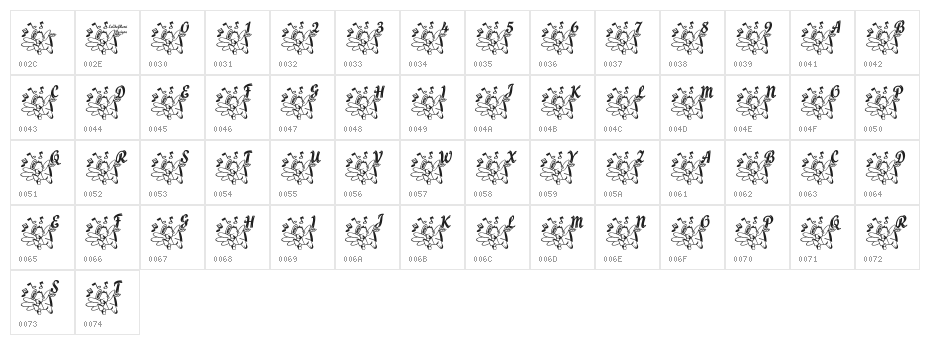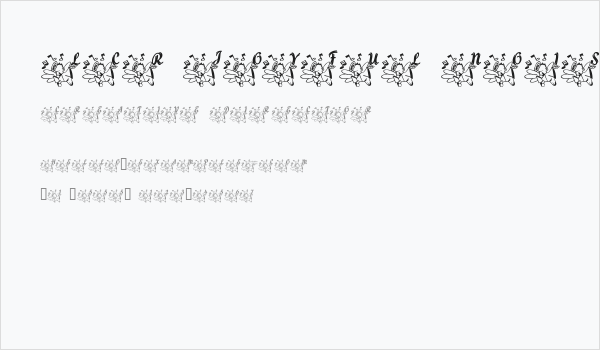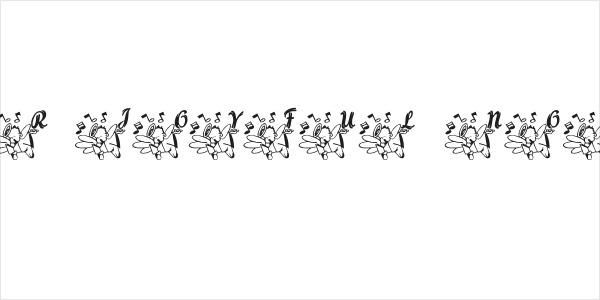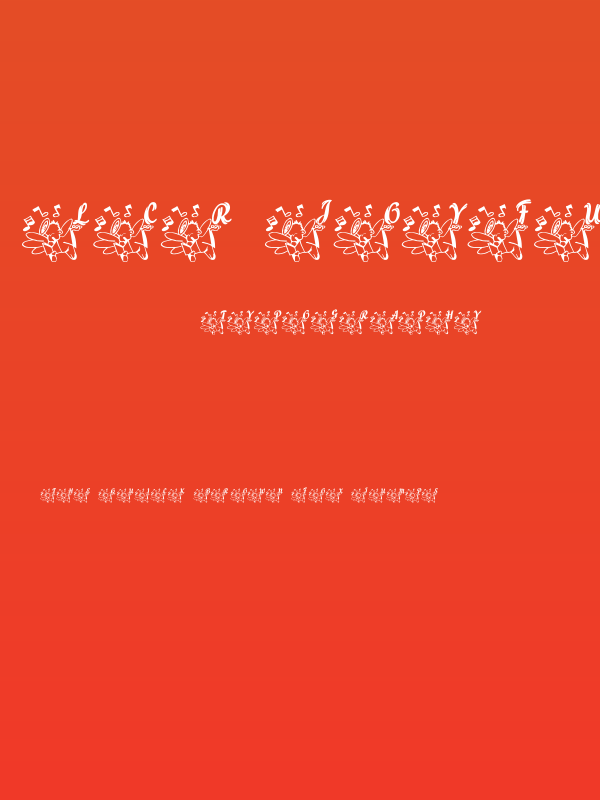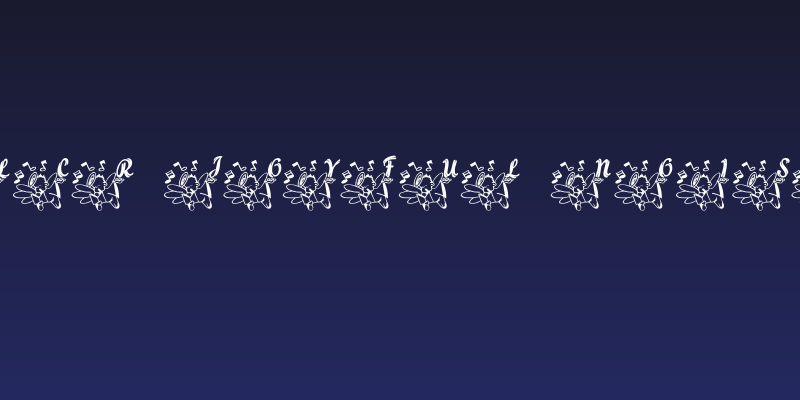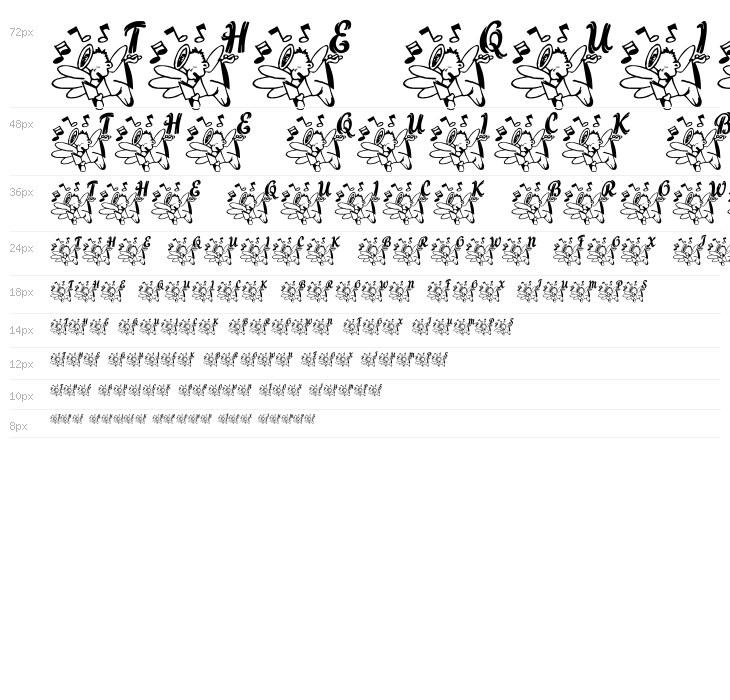
LCR Joyful Noise Font
LCR Joyful Noise Description
This decorative font features each character adorned with a playful floral and musical motif. The letters are intertwined with musical notes and floral designs, creating a whimsical and artistic appearance. The uppercase and lowercase letters maintain a consistent style, with each character uniquely integrated into the decorative elements. The numbers follow the same theme, ensuring a cohesive look across all characters. This font is ideal for projects that require a touch of creativity and artistic flair, such as invitations, greeting cards, or any design that benefits from a lively and joyful aesthetic.
| Use Case | Headlines, Artistic projects, Creative branding |
| Proposed Projects | Ideal for invitations, greeting cards, artistic posters, and creative branding projects. |